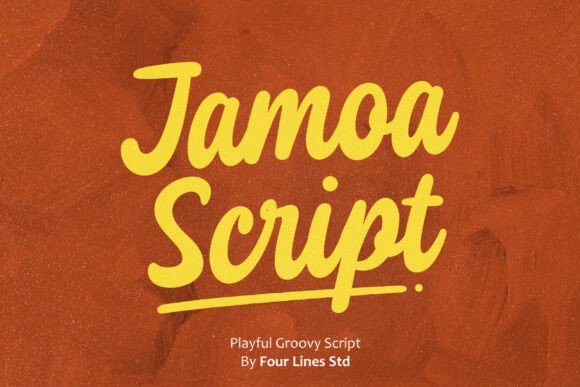
Jamoa Script: A Groovy Font for Your Brand
As a small business owner, I have learned that the details often make or break a customer's first impression. While product quality and customer service are paramount, the visual language of your brand is the handshake before the conversation even begins. In my journey building a boutique lifestyle brand, I discovered that finding the right typeface was just as critical as choosing a color palette. That is where Jamoa Script entered my design toolkit. This playful, groovy script font captures sunny summer vibes and the warmth of handcrafted goods, making it an ideal choice for entrepreneurs who want their brand to feel approachable, authentic, and distinctively human.
The Personality Behind the Letters
When you browse through categories like Script Amp or search for new Fonts, you often encounter typefaces that feel either too rigid or overly chaotic. Jamoa Script strikes a perfect balance. It features bold, flowing letterforms that mimic the natural movement of a hand writing with confidence. The style evokes retro cafés, beach parties, and warm packaging, creating an immediate emotional connection with the viewer. For a business selling handmade candles, artisanal soaps, or organic skincare, this font communicates that there is a real person behind the product, not just a faceless corporation.
The mood of Jamoa Script is inherently inviting. It does not shout; it smiles. In a digital landscape saturated with sterile, corporate sans-serif fonts, using a creative font like this can help your brand stand out in a crowded feed. It suggests fun, relaxation, and quality craftsmanship. Whether you are launching a new line of merchandise or rebranding an existing café, the visual appeal of this script adds a layer of personality that standard fonts simply cannot replicate.
Bringing Consistency to Real-World Materials
One of the biggest challenges for independent creators is maintaining consistency across various touchpoints. Your logo on Instagram should feel related to your product labels, your business cards, and your website banners. Jamoa Script serves as an excellent anchor for this consistency. Because its character is so distinct, it becomes instantly recognizable when used as a primary display font for logos and headlines.
Strategic Use: Headlines vs. Body Text
While Jamoa Script is visually stunning, it is important to understand where it shines brightest in a layout. As a display font, it excels in headlines, logos, and short phrases. However, like most decorative handwritten fonts, it is not designed for long paragraphs of body text. Readability can suffer if you try to use it for detailed descriptions, terms of service, or lengthy blog posts, especially on mobile screens.
To maintain professionalism and trustworthiness, reserve Jamoa Script for moments where you want to grab attention or convey emotion. Use it for the name of your bakery on the storefront sign, the title of a workshop flyer, or the "New Arrival" banner on your e-commerce site. For the supporting information—such as ingredients lists, pricing details, or contact info—you need a more neutral companion. This strategic separation ensures your message is both beautiful and clear.
Mastering Font Pairing for Professional Results
A common mistake I see among fellow entrepreneurs is letting the decorative font do all the heavy lifting. The secret to a polished look lies in effective font pairing. To let Jamoa Script shine without overwhelming the reader, pair it with a clean, simple typeface. A geometric sans serif font provides a modern contrast that grounds the playfulness of the script. Alternatively, a classic serif font can add a touch of elegance, creating a sophisticated yet friendly vibe suitable for high-end beauty brands or luxury boutiques.
For example, if you are designing a menu for a coastal café, you might use Jamoa Script for the section headers like "Fresh Catch" or "Daily Specials," while keeping the item descriptions in a crisp sans serif. This combination guides the eye naturally, ensuring that customers can enjoy the aesthetic while easily reading what they are ordering. Testing these combinations in your actual design assets before finalizing them is crucial. Print a sample label or view your mockup on a phone screen to ensure the pairing works in real-world scenarios.